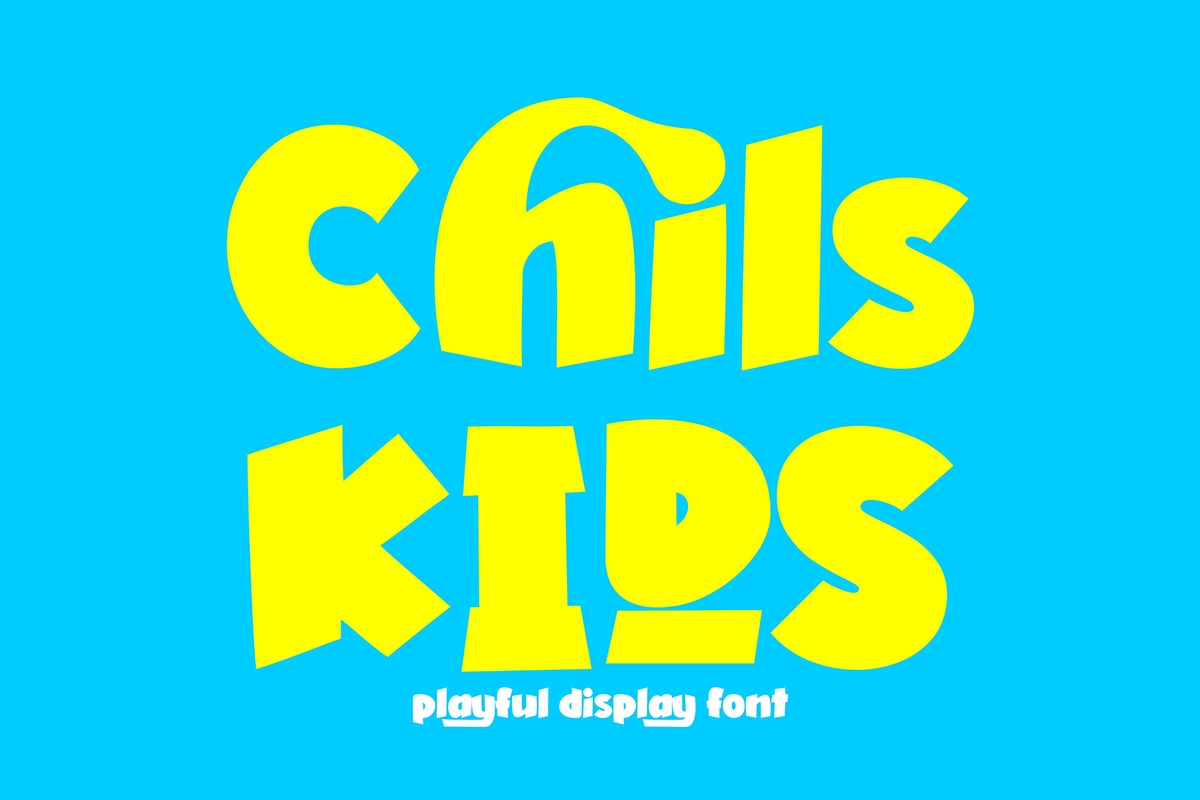
Chils Kids
Chil Kids is a playful display typeface that captures the joyful spirit of childhood and transforms it into a versatile design tool. With its soft curves, rounded shapes, and lively character, this font is designed to bring warmth, creativity, and fun into any project. It is a perfect choice for designers who want to create designs that feel friendly, engaging, and full of personality. The design of Chil Kids focuses on simplicity and charm. Each letter is carefully crafted to maintain a balanc